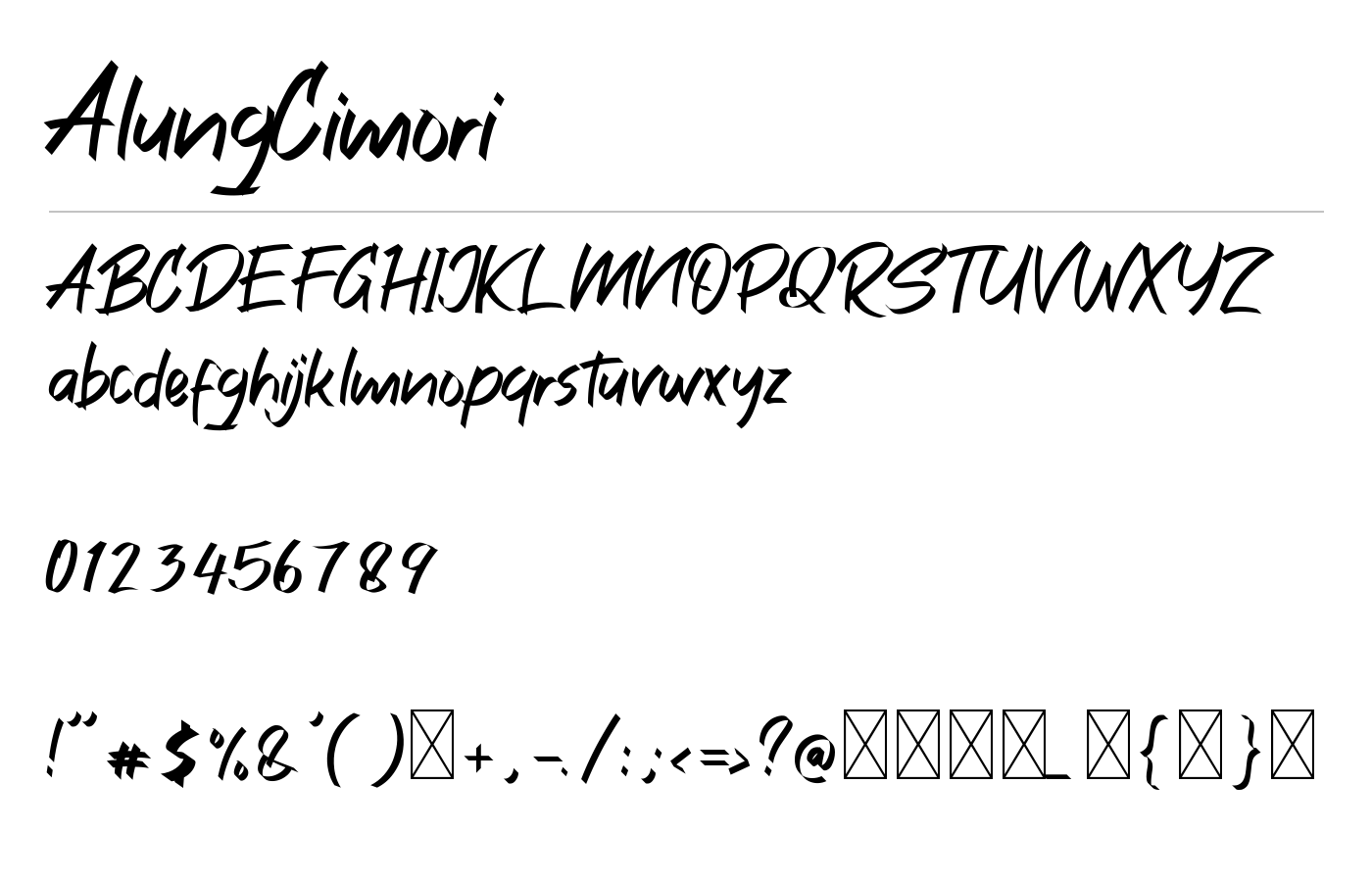
AlungCimori is a dynamic script font with a brush-like, handwritten style that conveys energy and personality. Its slightly irregular strokes and varying angles create a casual yet bold appearance, making it perfect for creative projects, branding, or headlines that need a lively, human touch. This font works especially well where a playful and expressive vibe is desired, such as in artistic logos, posters, and informal editorial design.
AlungCimori Font
About AlungCimori Font
| Font family | AlungCimori Font |
| Designer | Christmas Kalingga Abed Nego |